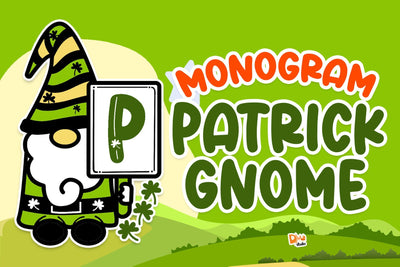
Monogram Patrick Gnome
Introducing, our new product : Monogram Patrick Gnome
Cute and adorable gnome monogram font with St.Patrick theme, great to celebrate your St.Patrick days!
- All in caps
- Numeric